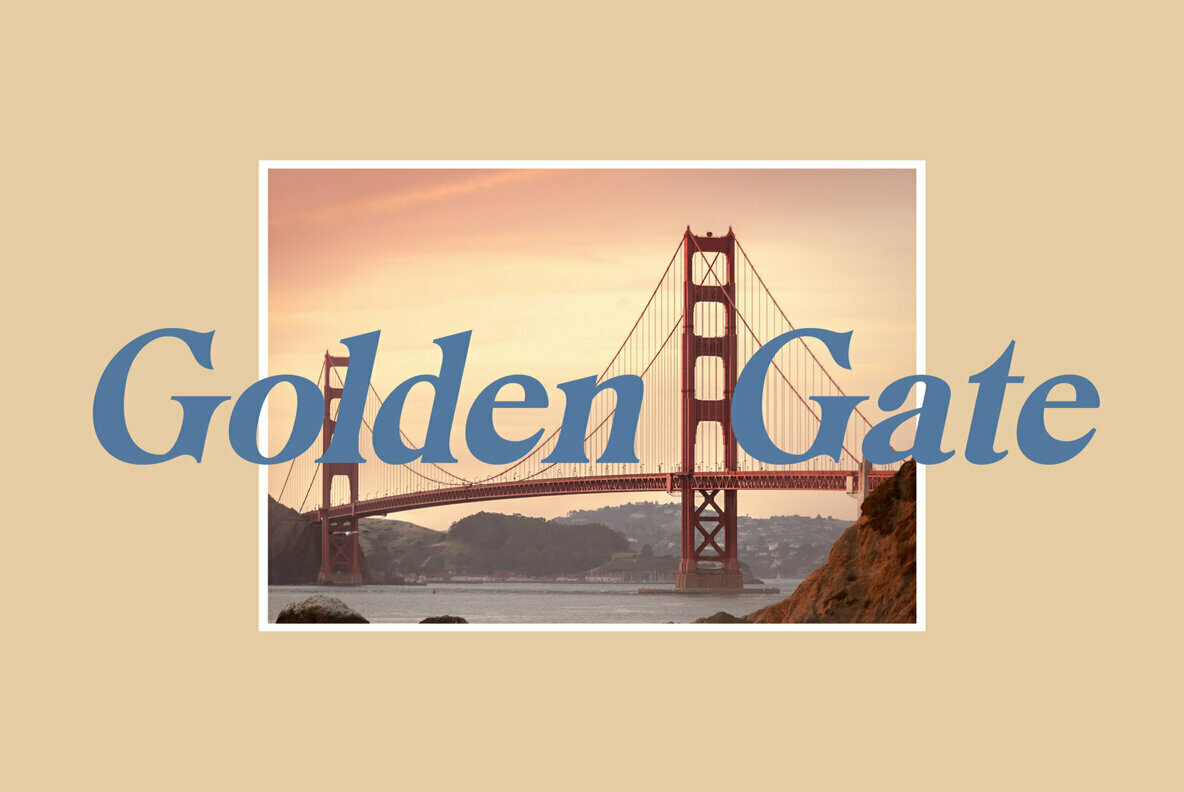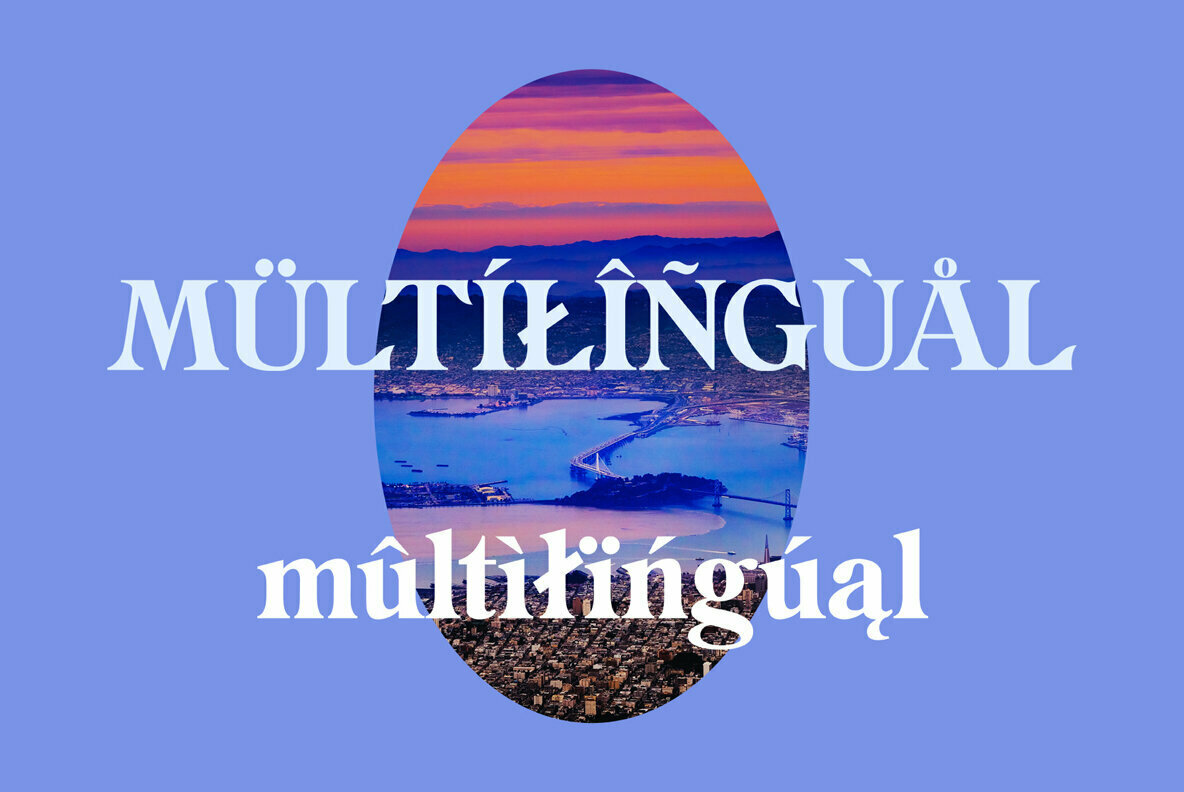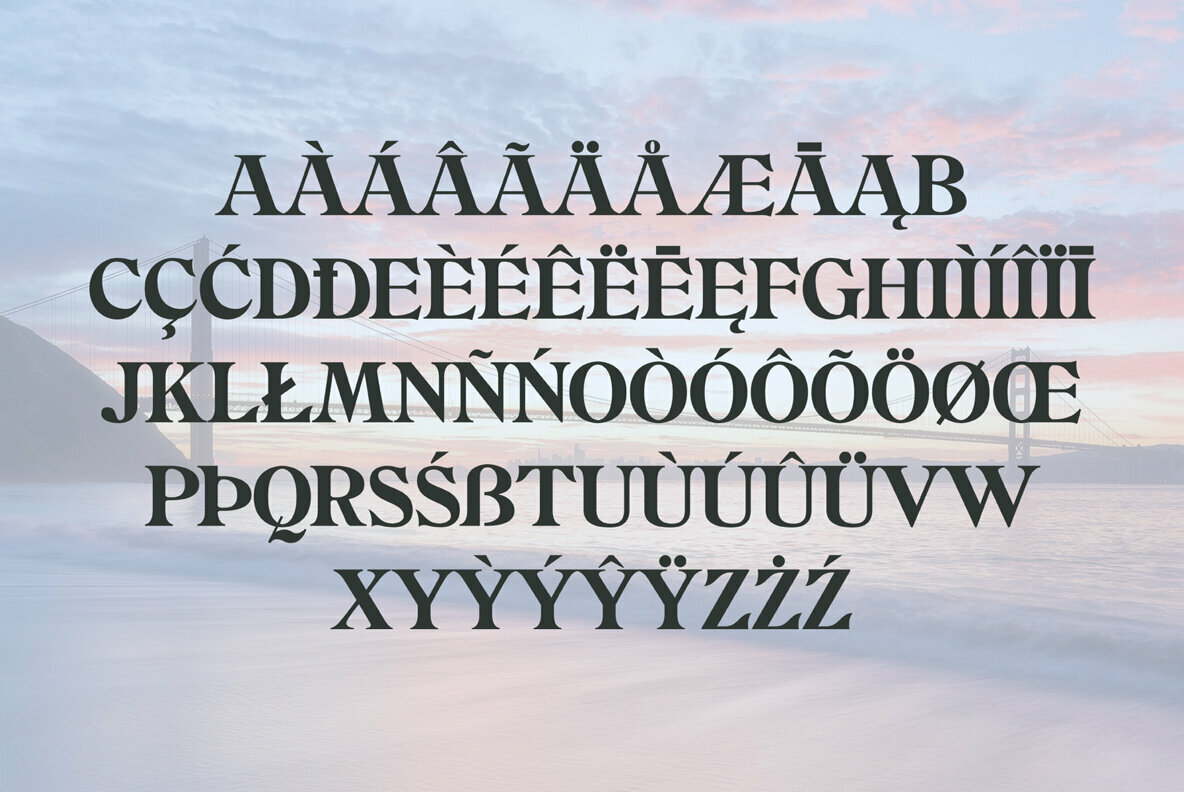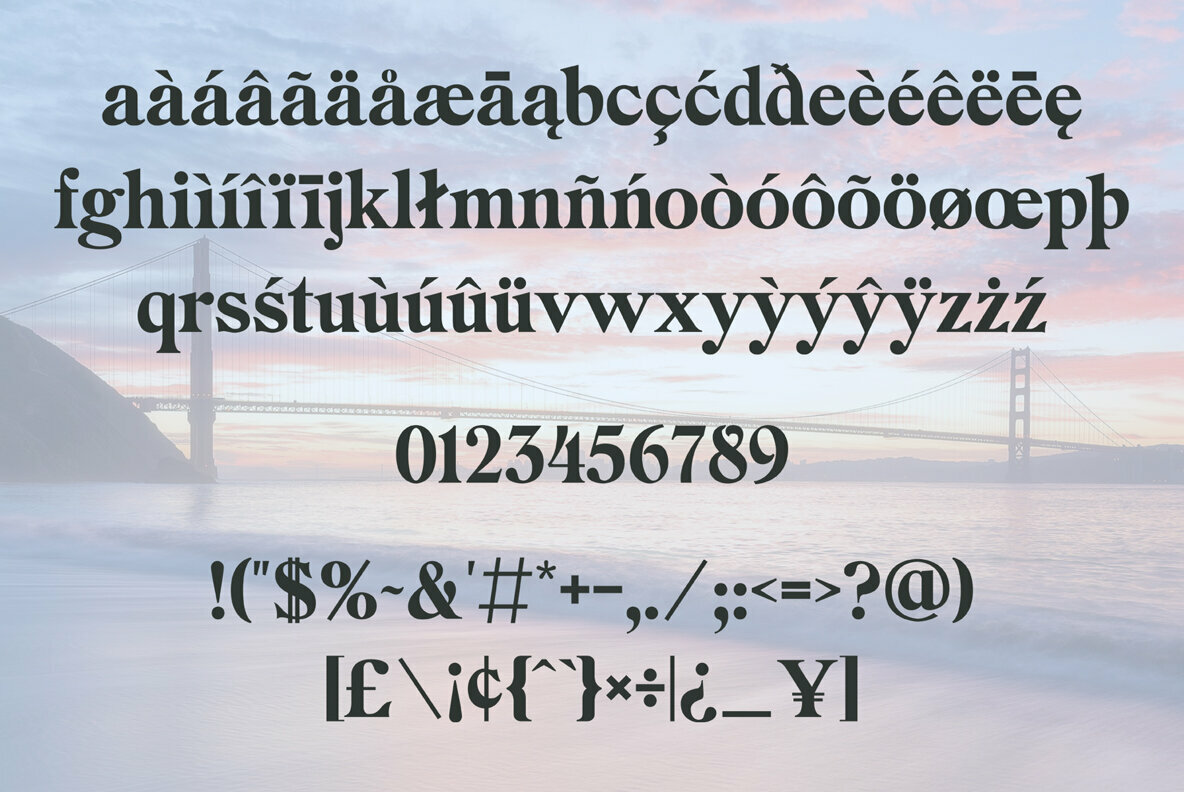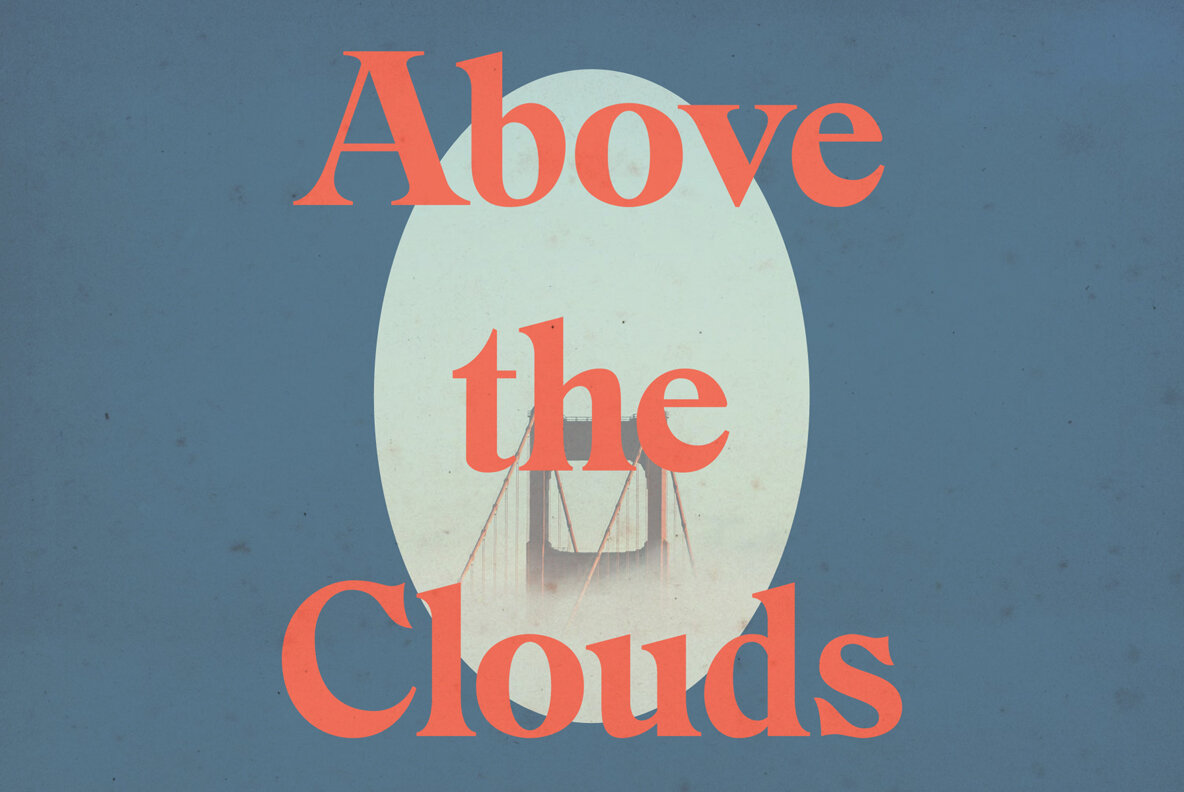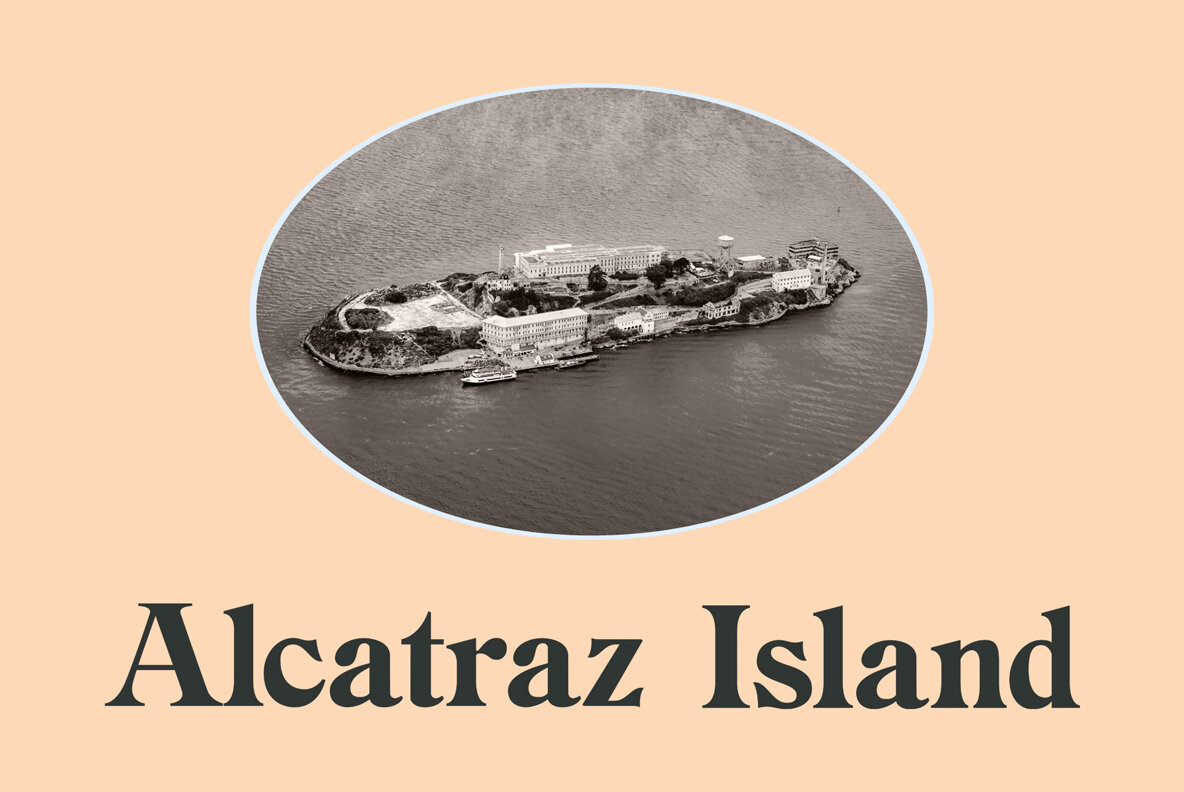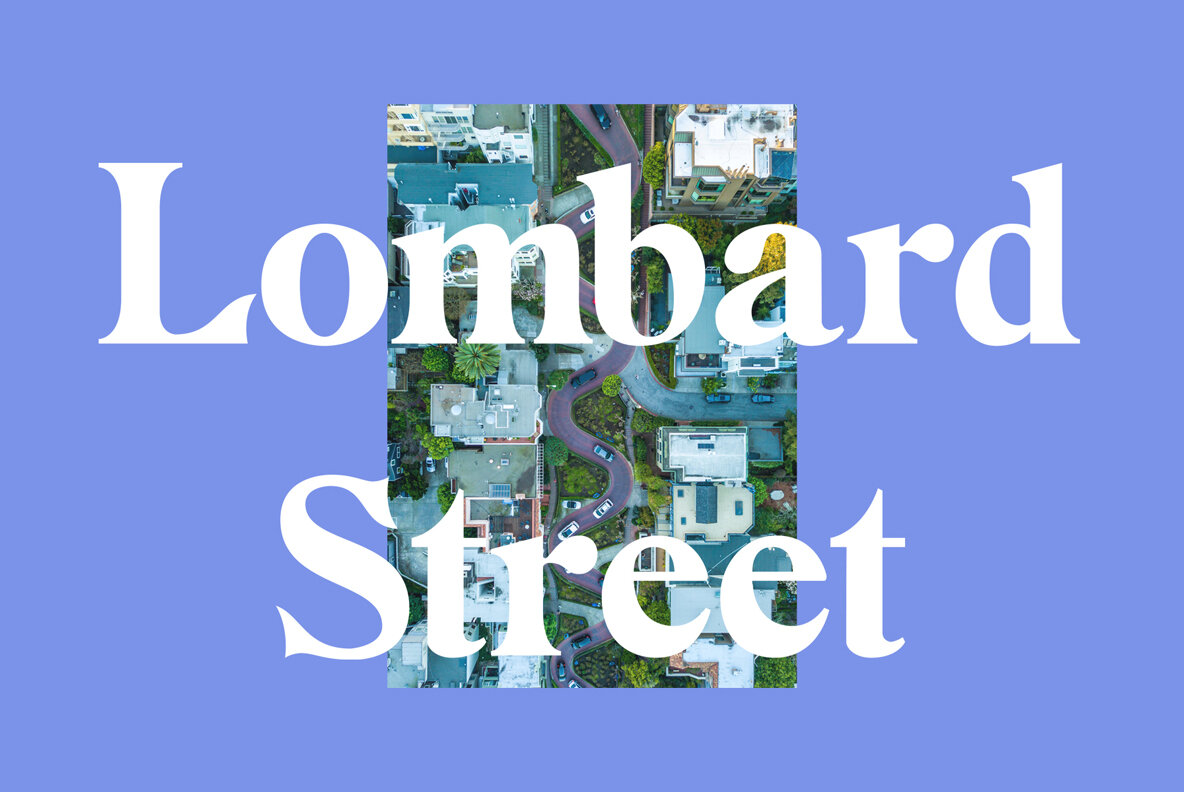
Frisco Font
Frisco Regular
Frisco Oblique
Frisco offers a unique blend of elegance and nostalgia, drawing inspiration from the timeless serifs of the early 20th century while infusing whimsical shapes reminiscent of the 1960s. This versatile serif font is perfect for crafting logos, labels, and headings, enhancing your brand's visual identity across social media and beyond. Frisco caters to a wide array of linguistic needs with extensive support for accented characters, allowing customization in numerous languages.Frisco: Modern Classic Serif Font
Comprehensive Language Support